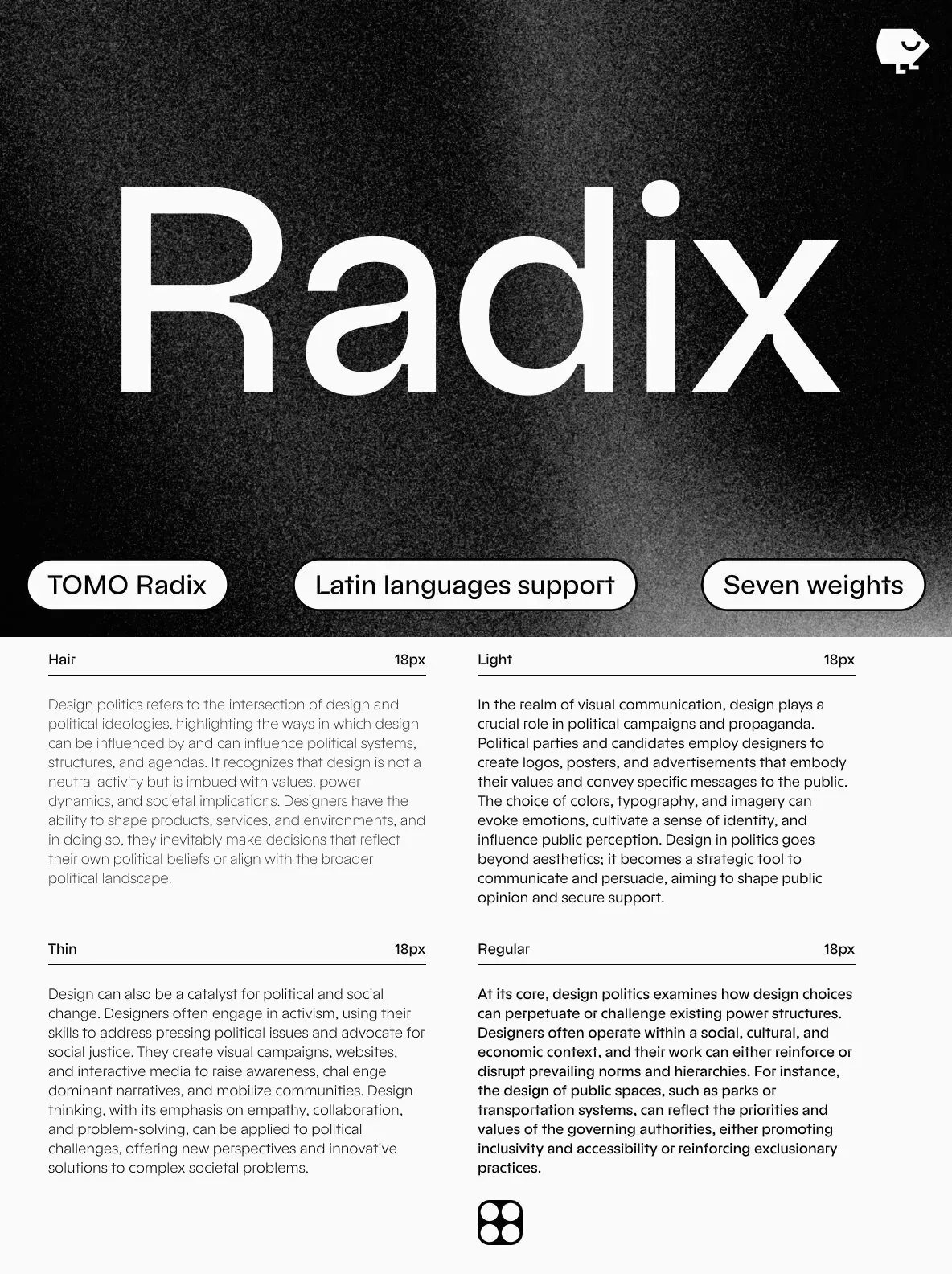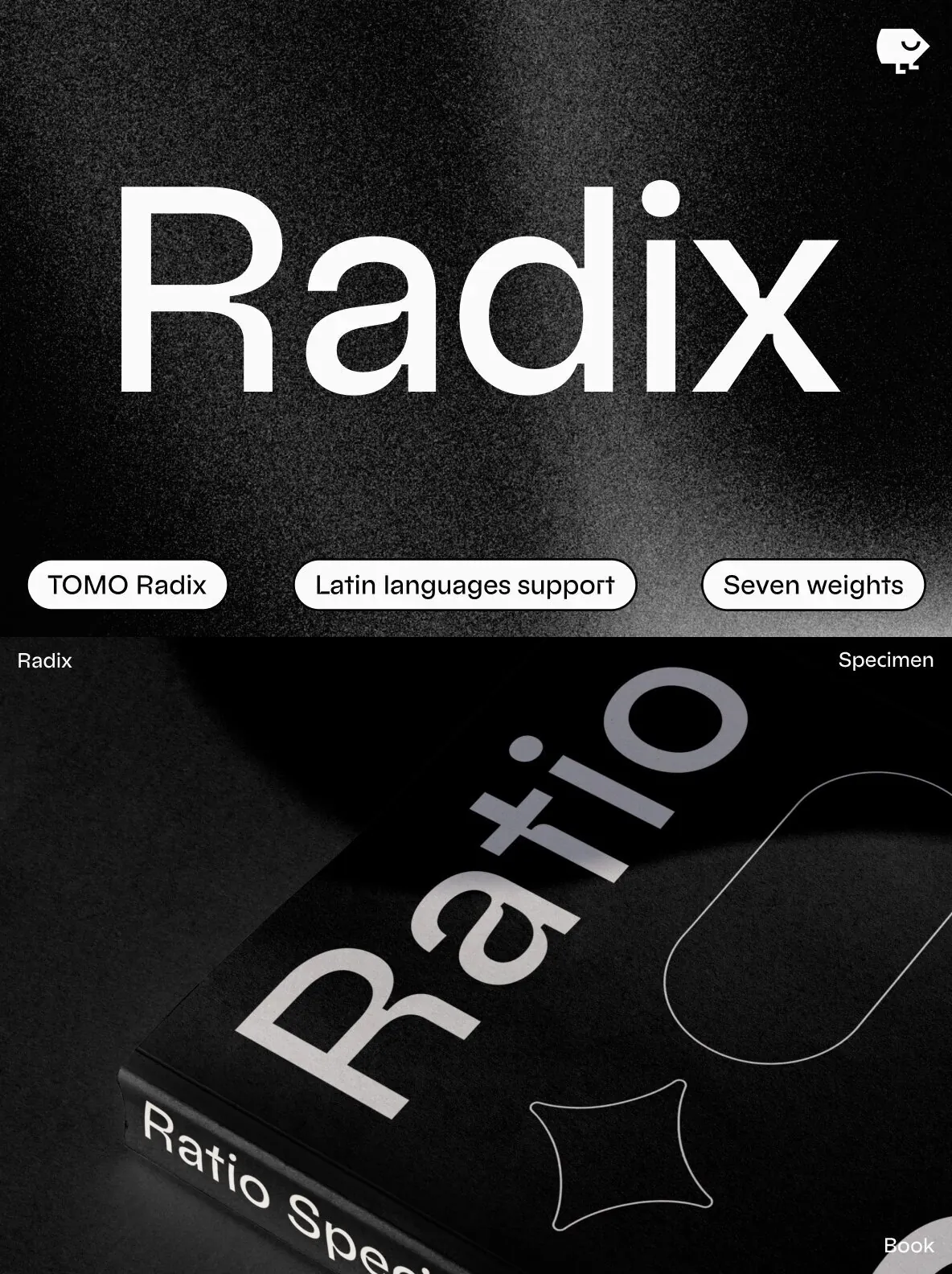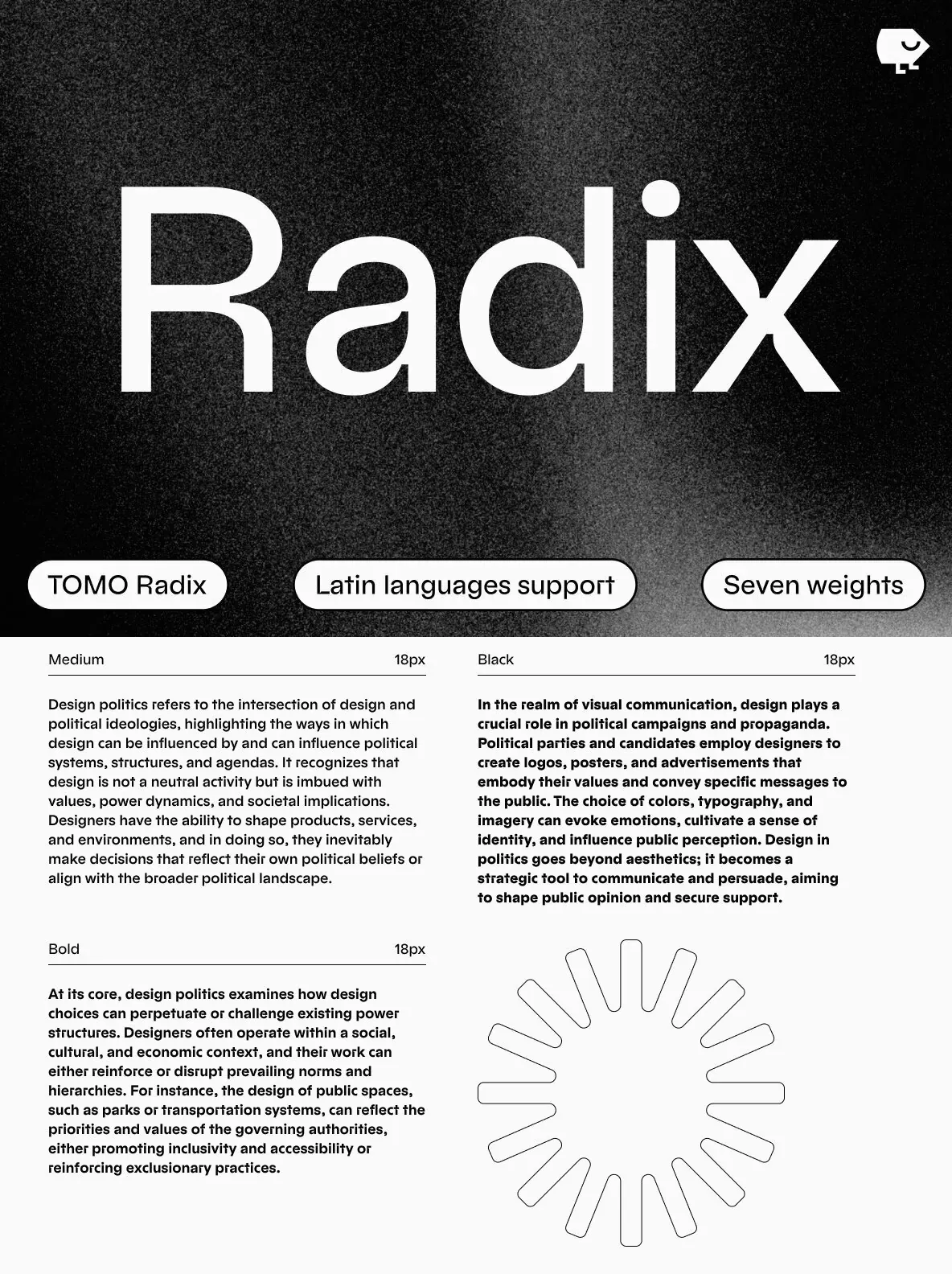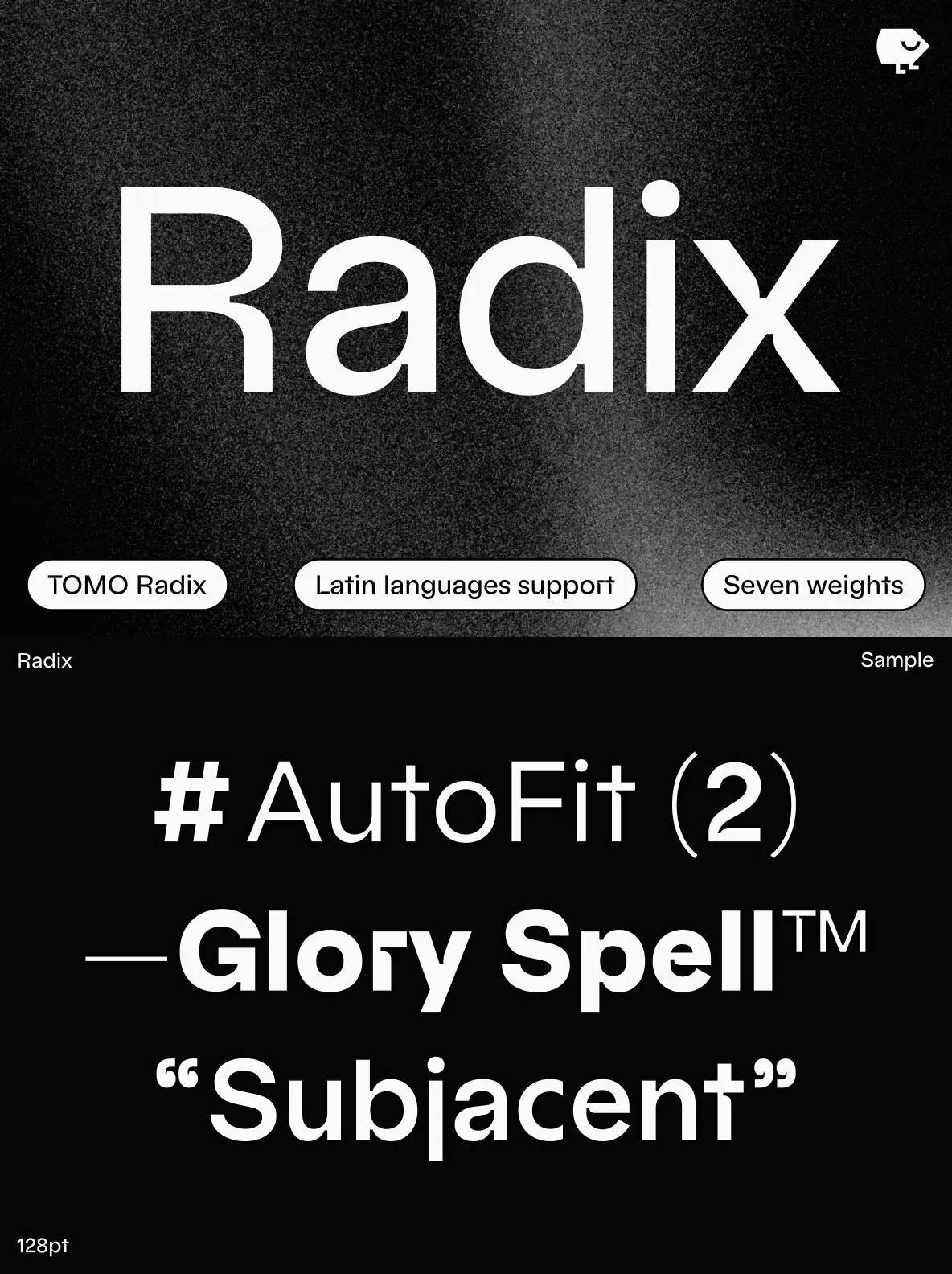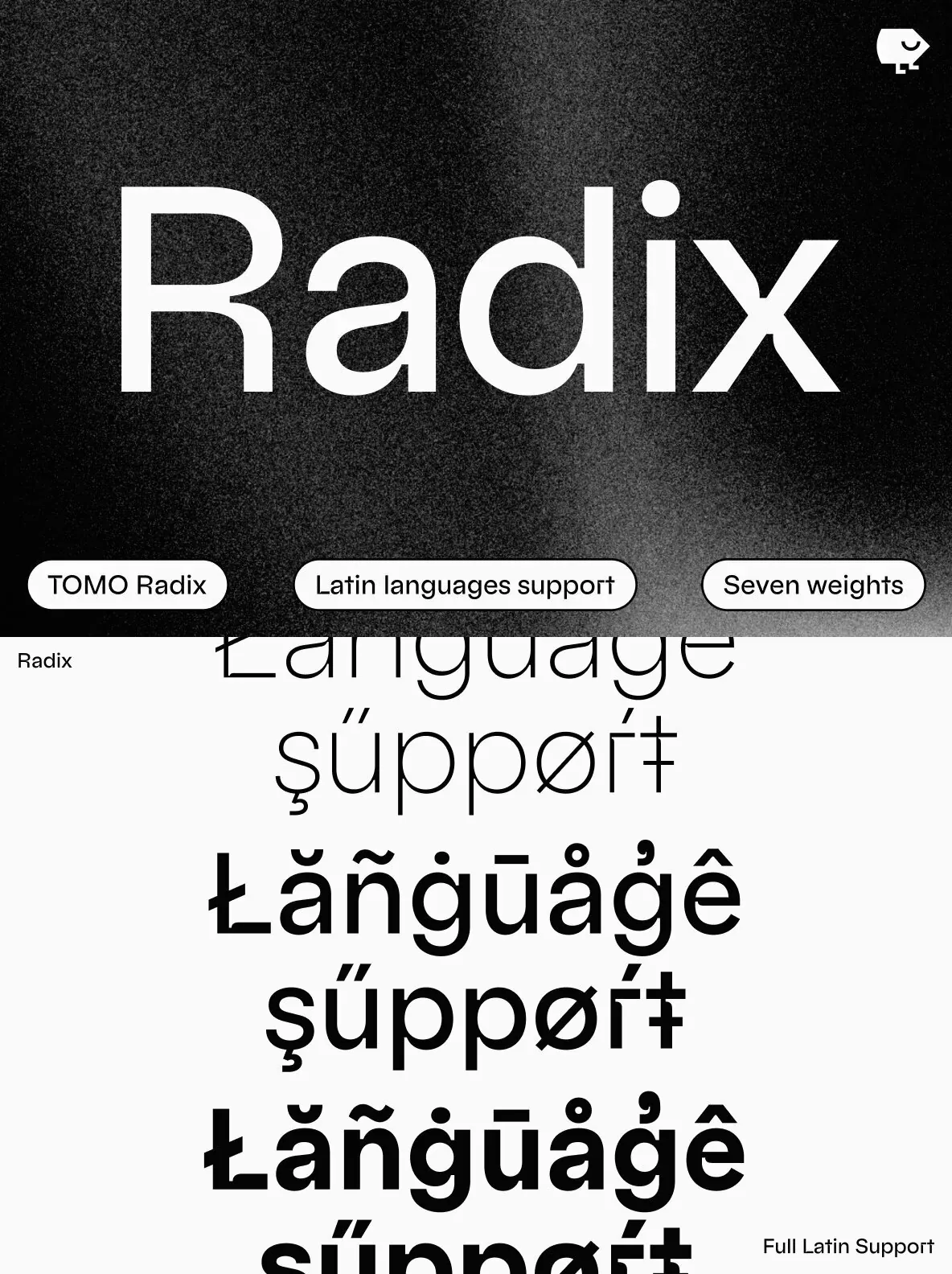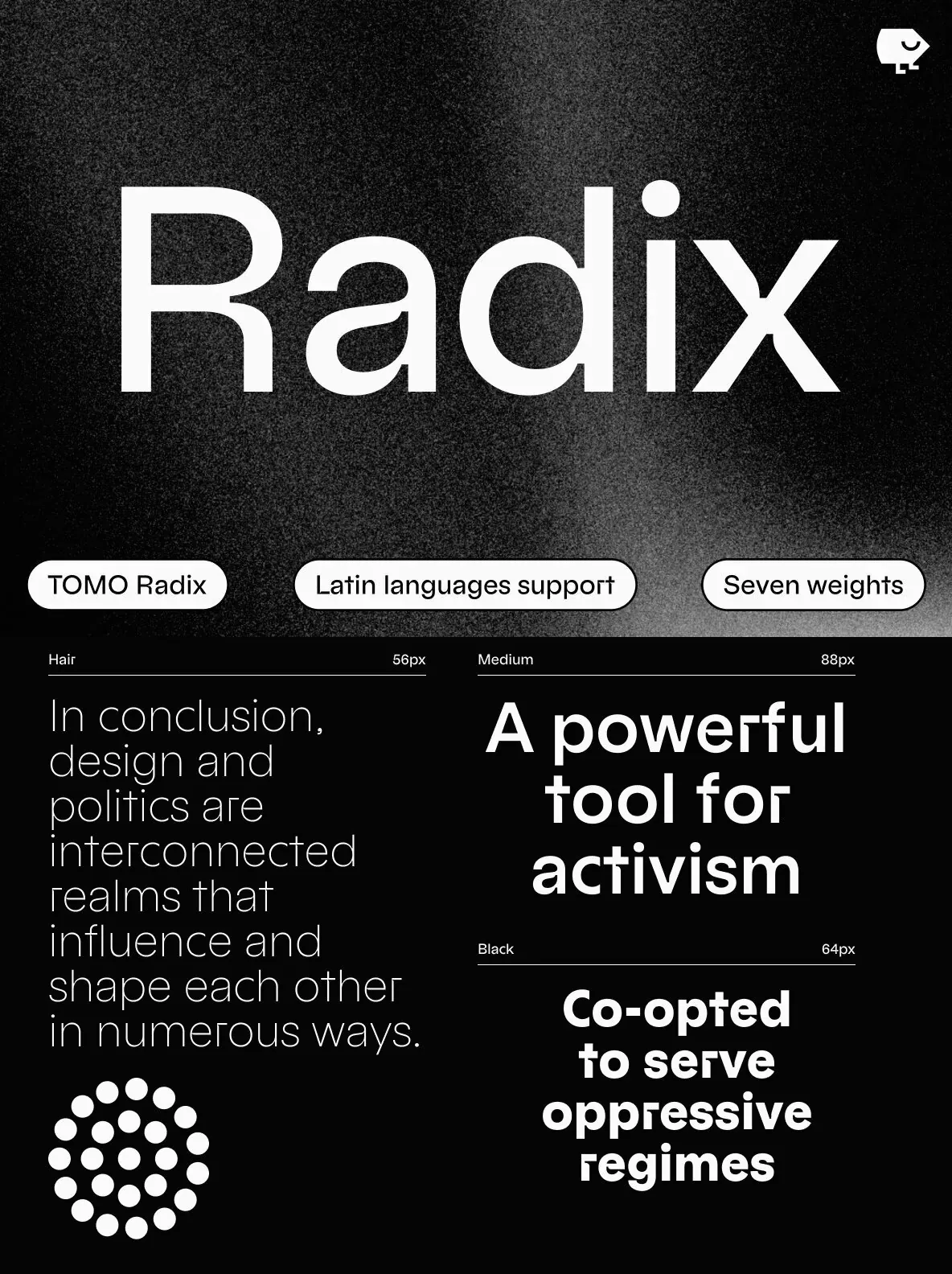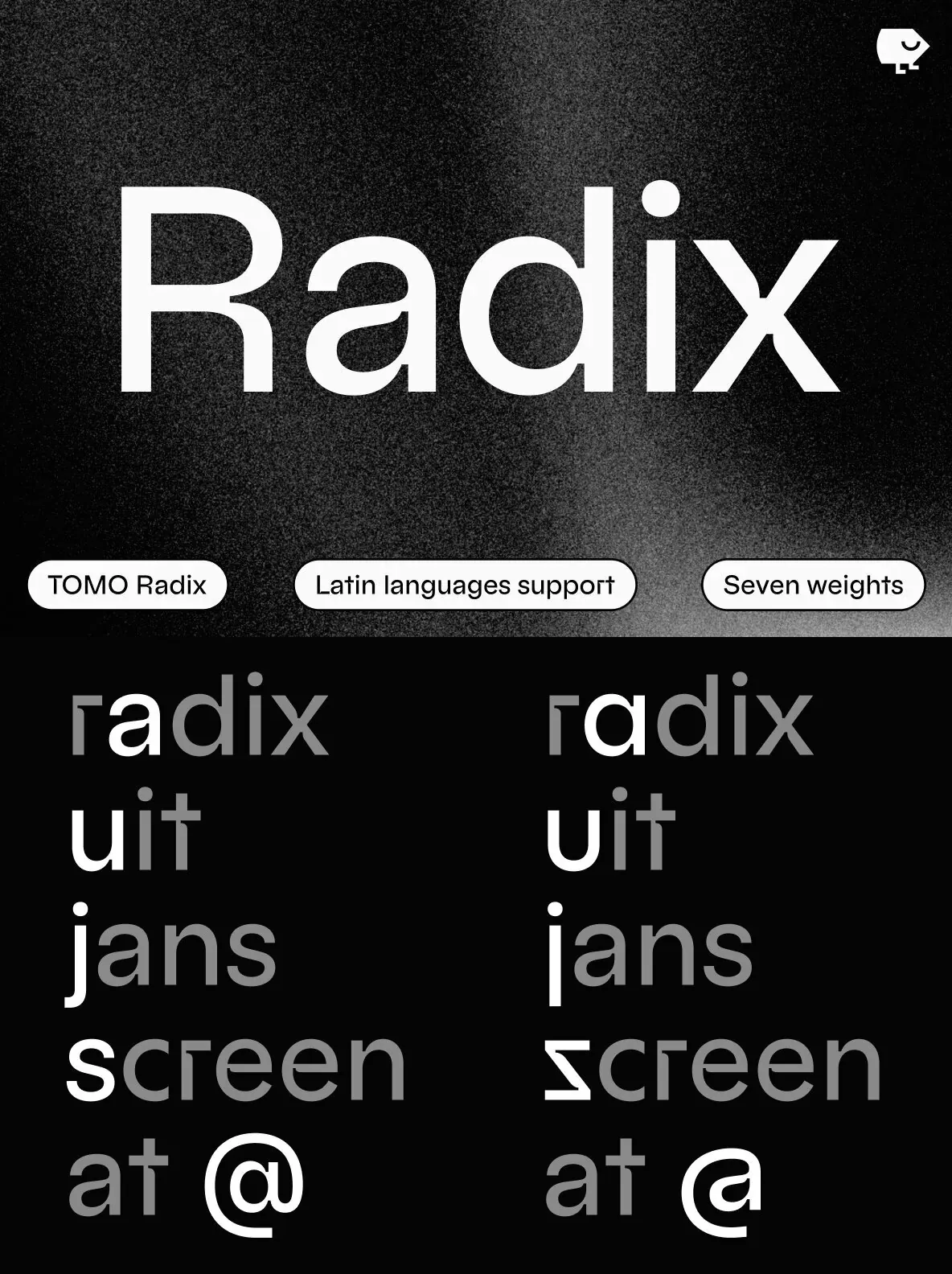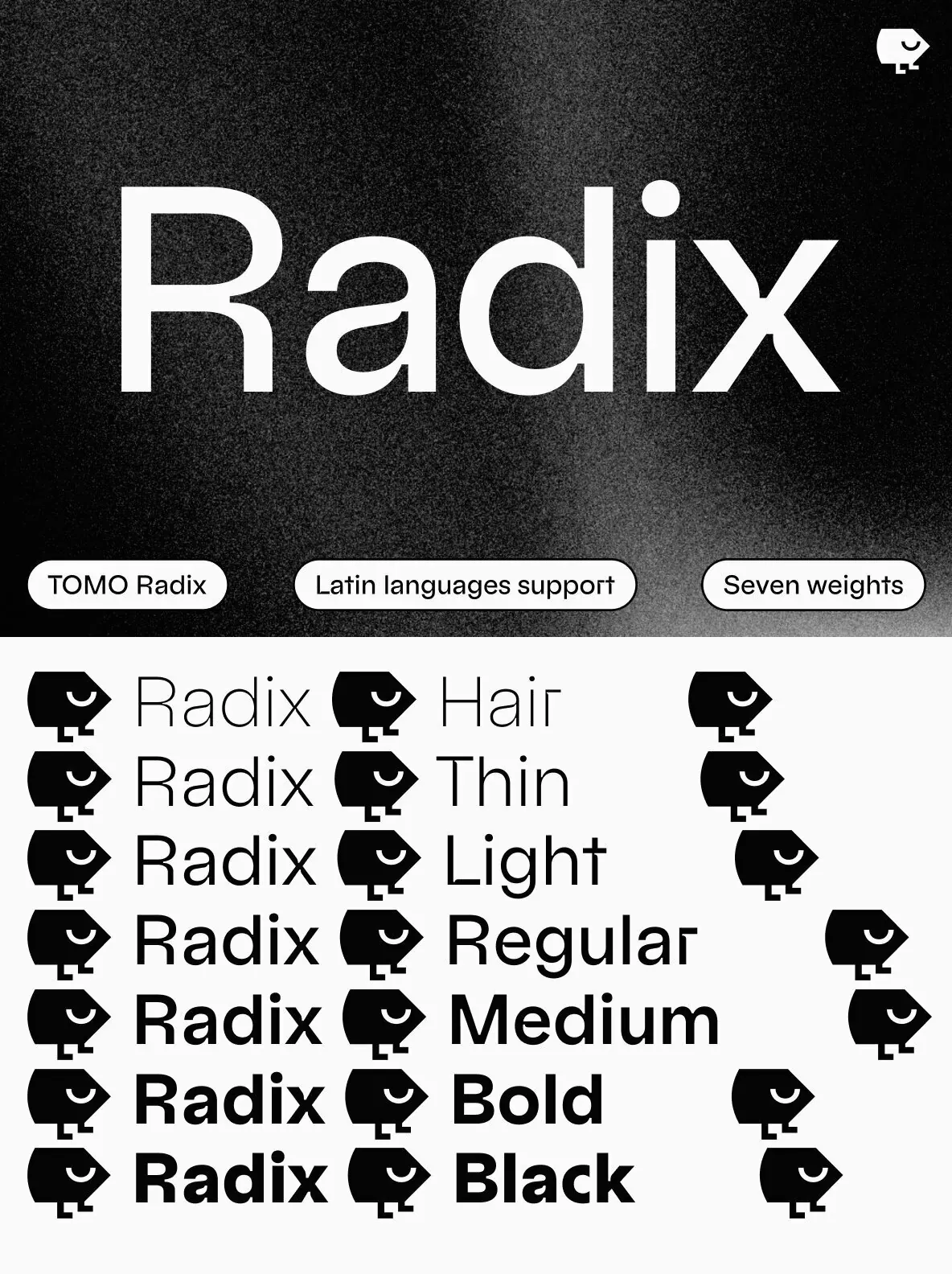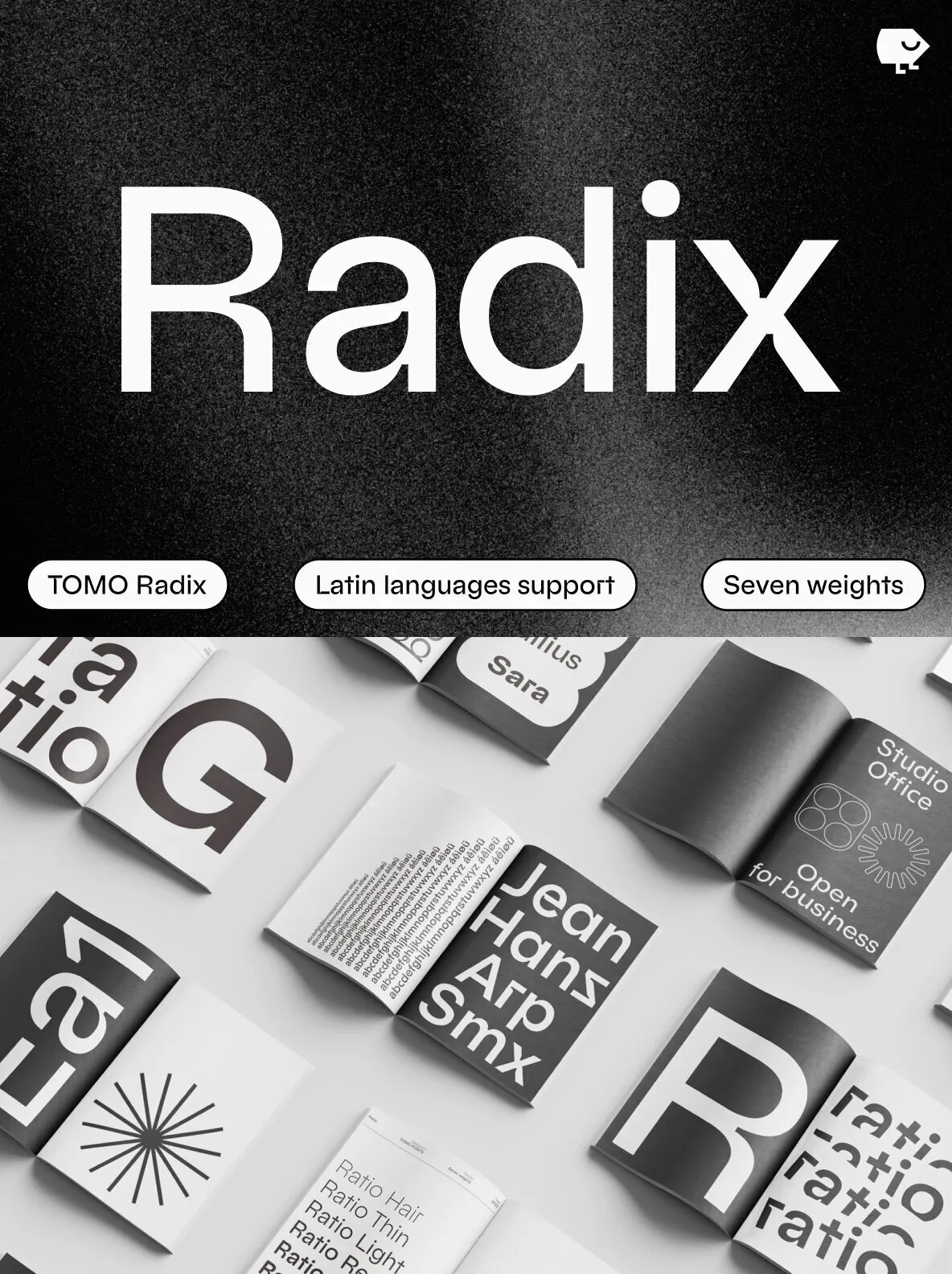
Radix — Bauhaus Poise, Inktrap Bite
A geometric typeface shaped by mid-century modernism, Radix pairs Bauhaus clarity with pronounced inktraps. Clean lines and disciplined forms guide the design, while the distinctive lowercase cues from Futura add a familiar modernist rhythm. The balance feels classic, but the details read with contemporary precision in both display and text-led settings.
Across seven (7) weights, the family includes an extensive collection of spurless characters that delicately embrace and support the inktraps. This approach keeps letterforms visually engaging and well balanced, while staying clear across a wide range of typographic uses. Alternate glyphs are available through OpenType stylistic sets, extending Radix’s range for design systems, editorial layouts, and identity work. Designed by Tomo.